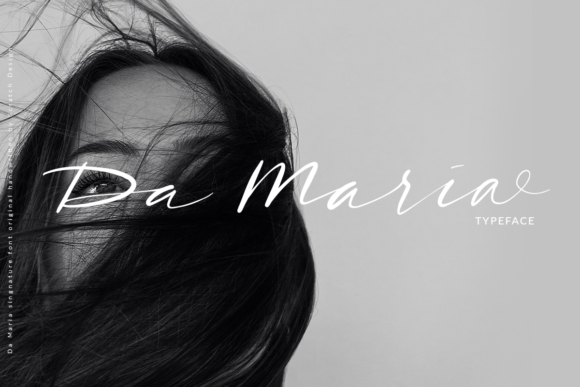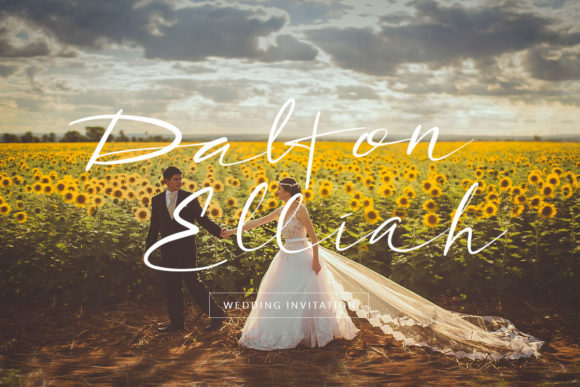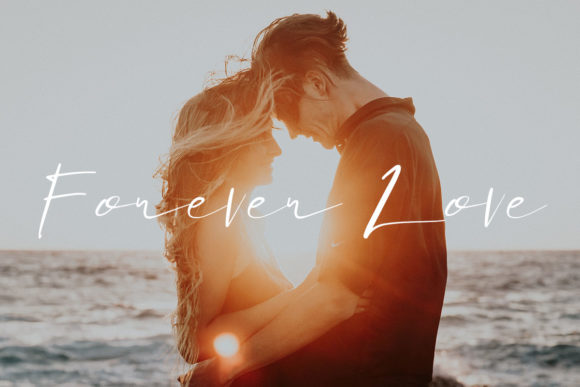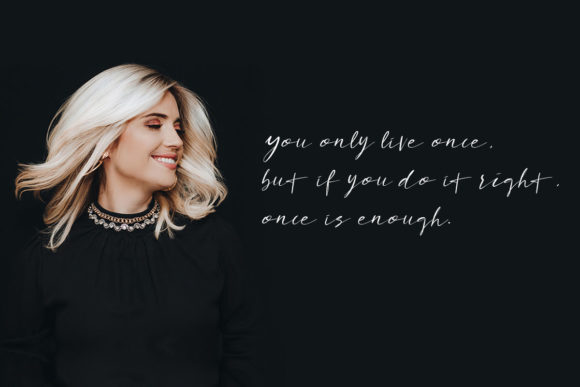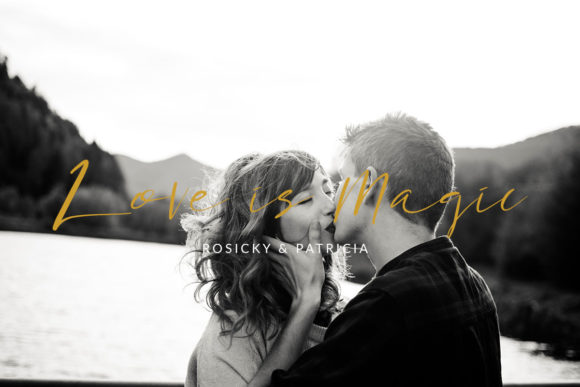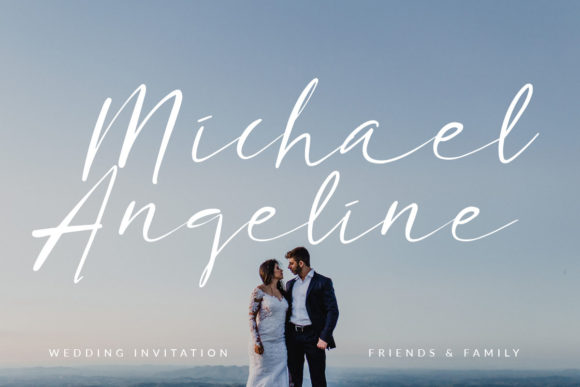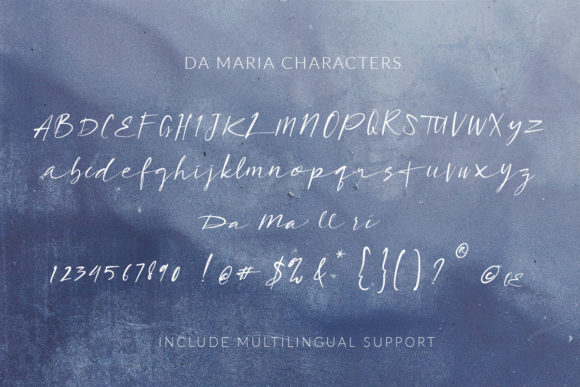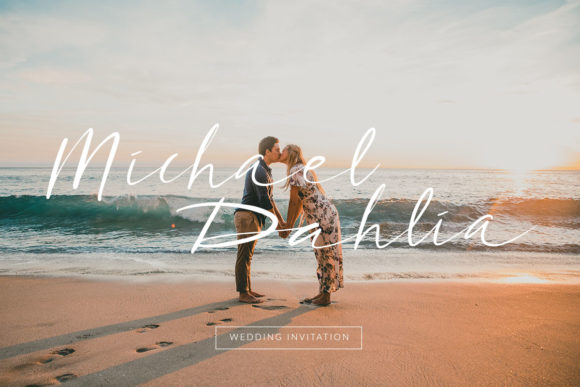
Da Maria Font
About Da Maria Font
Da Maria is a playfully romantic and sweet script font that’s great for adding a personal vibe to your next design idea. Get inspired by its unique style!